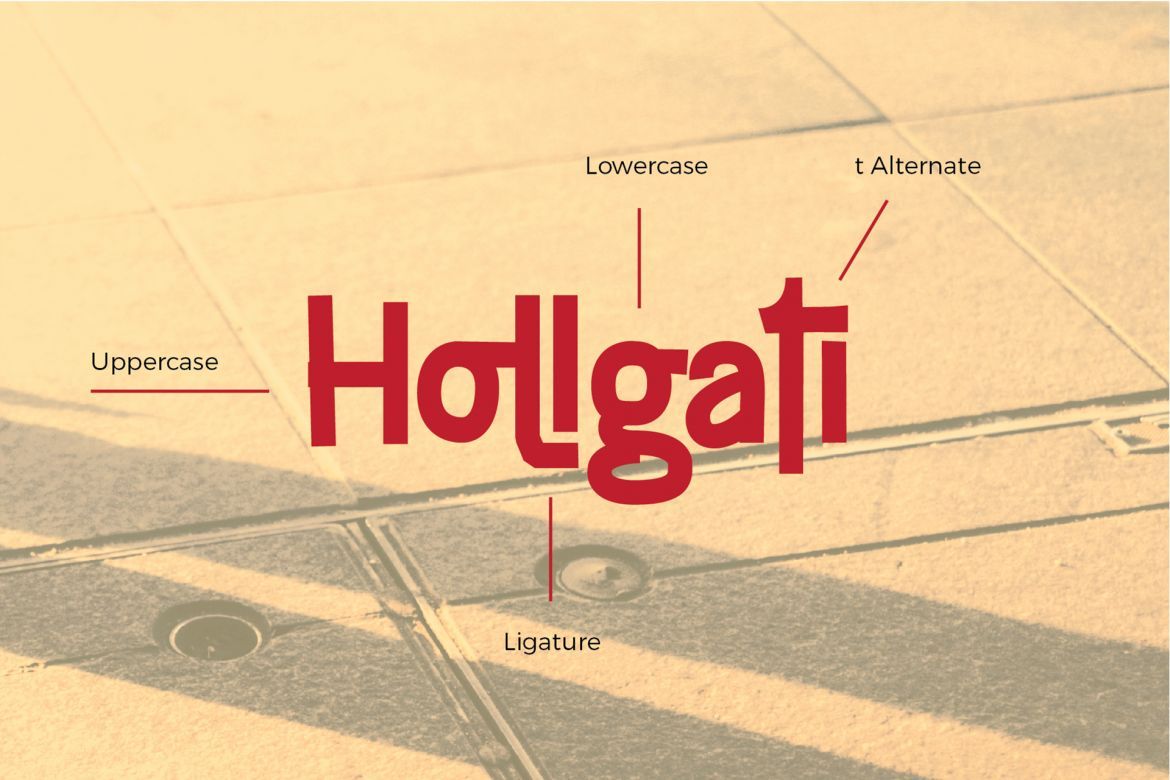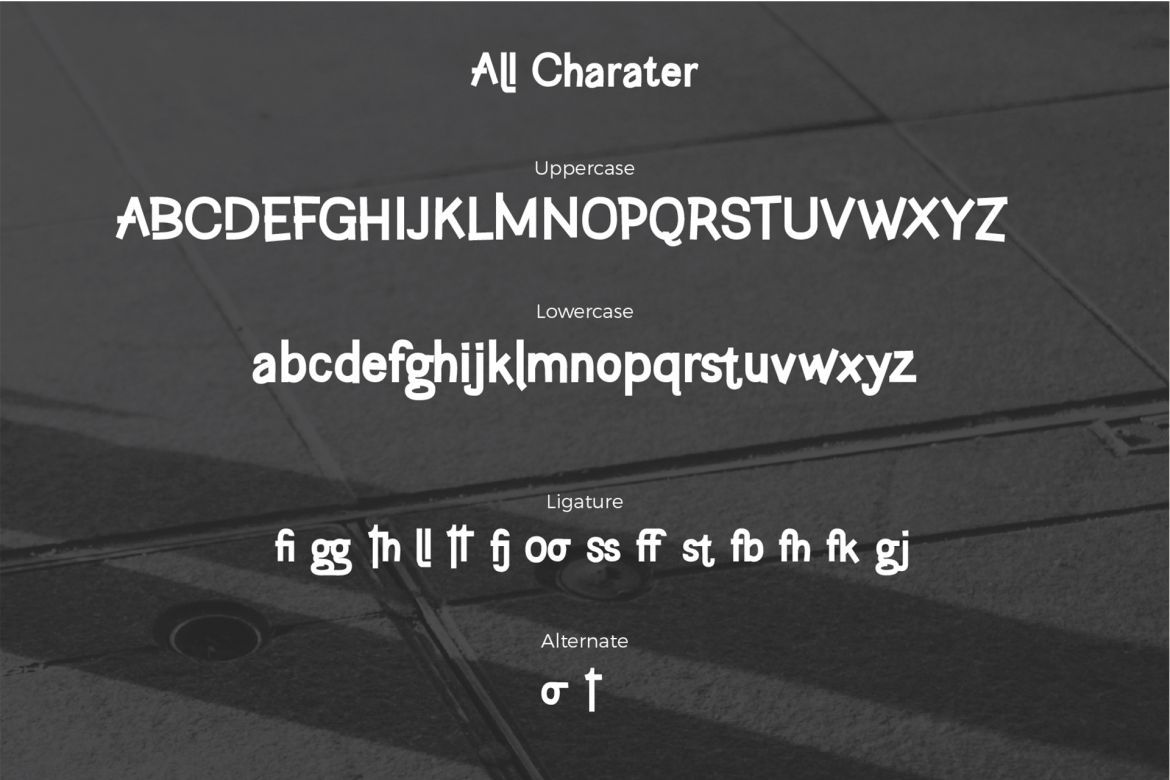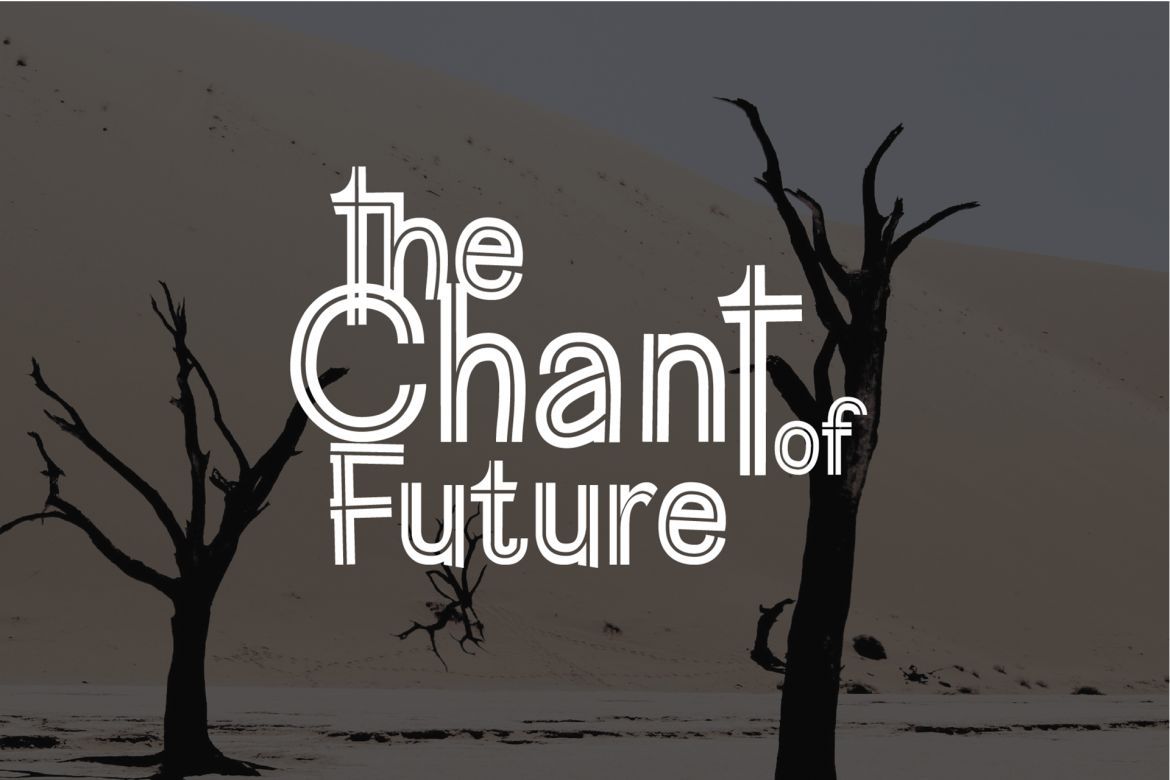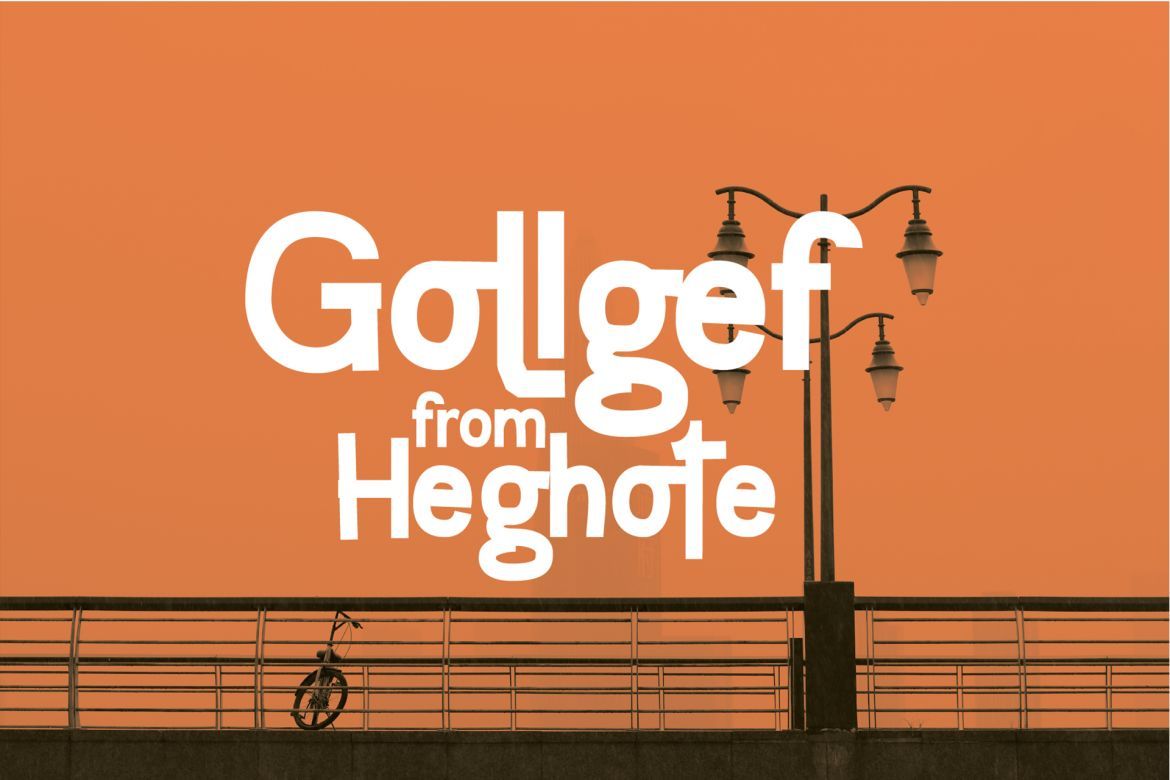
Hollgati Font
Holgati Font is an Elegant Regular and outline font files. it is based on the combining a variety of styles. Suitable for Logo, greeting cards, quotes, posters, branding, name card, stationary, design title, blog header, art quote, typography
Uppercase and lowercase Numeral and Punctuation Alternates and Ligatures